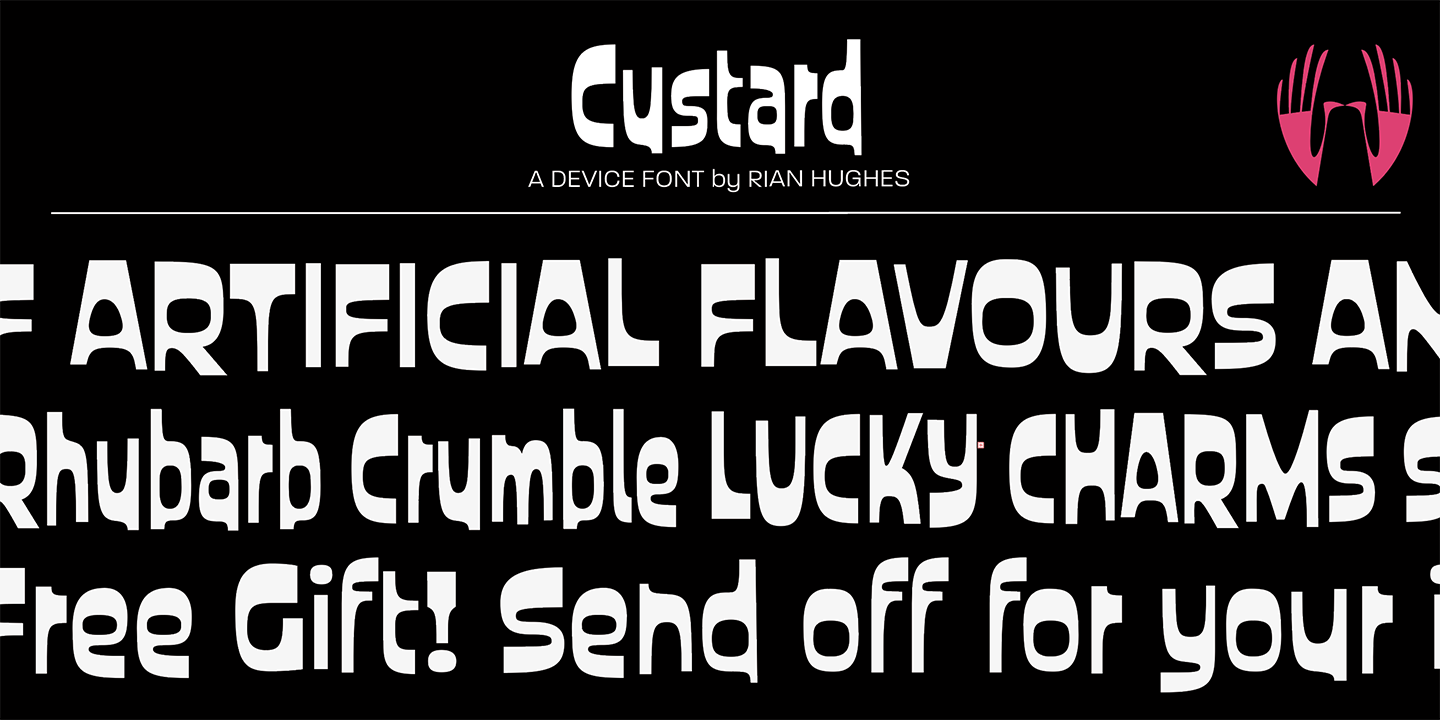
Custard Font is perfect for bakery signage, dessert shop branding, sweet treat packaging, ice cream parlor logos, children's confectionery, homemade cake businesses, vintage candy stores, cozy café menus, artisan pastry labels, and warm comfort food designs.
Custard Font is exciting because it melts with creamy sweetness and comforting warmth through soft letterforms that evoke the smooth richness of homemade custard and the nostalgic joy of childhood desserts, making it perfect for brands celebrating sweet indulgence and comfort food traditions.
The Custard Font family includes regular weight with sweet alternates, dessert-themed ornaments, and creamy decorative elements, providing designers with delightful tools for creating typography that tastes as good as it looks with authentic confectionery charm.
When your project needs sweet comfort and creamy indulgence, Custard Font Free Download delivers the perfect typographic recipe for dessert communications. This delicious display typeface combines bakery warmth with professional functionality, ensuring your brands resonate with audiences seeking genuine comfort and sweet satisfaction. The soft letterforms and creamy styling make this font an essential choice for bakeries, dessert shops, and any application where sweet comfort, homemade quality, and nostalgic warmth are crucial for creating memorable experiences that celebrate the simple pleasure of perfectly crafted desserts and the comforting joy of sweet traditions that bring families together around the kitchen table.